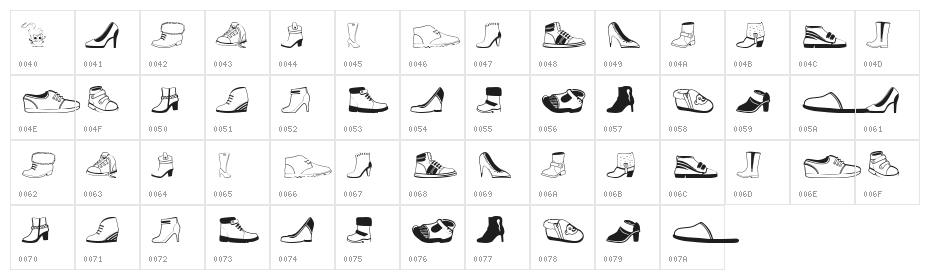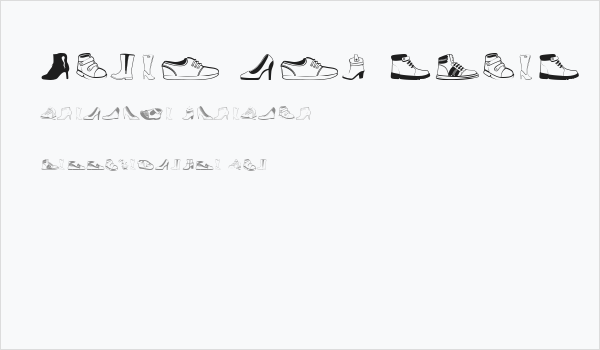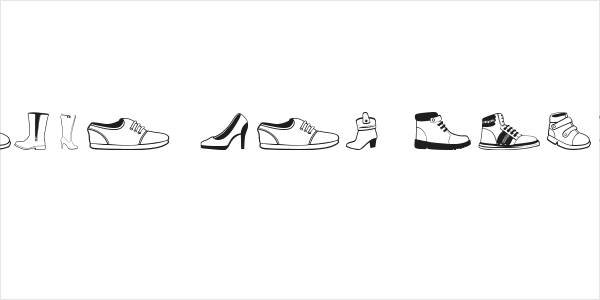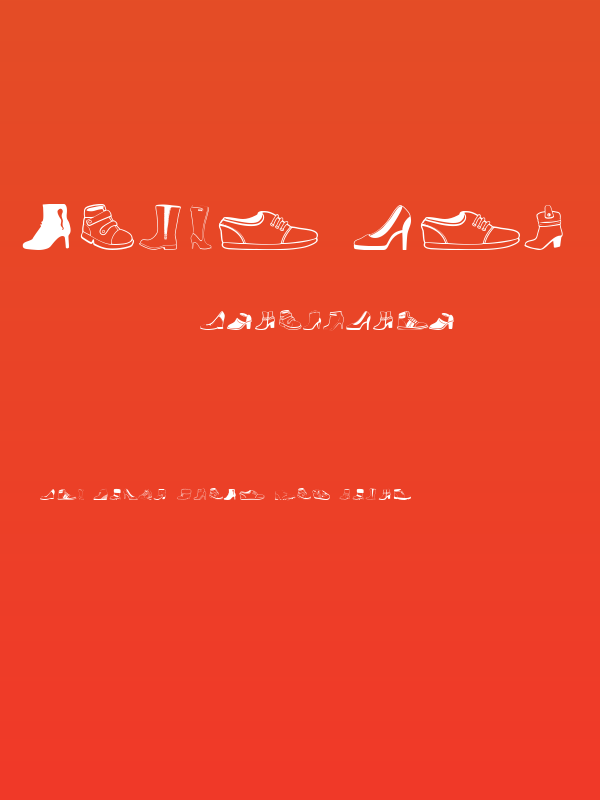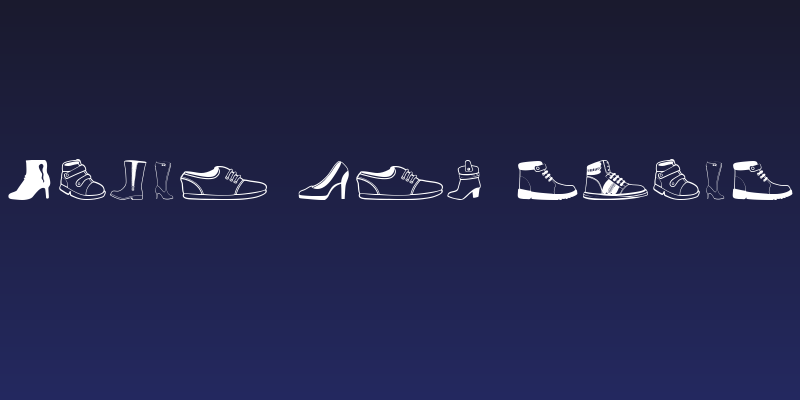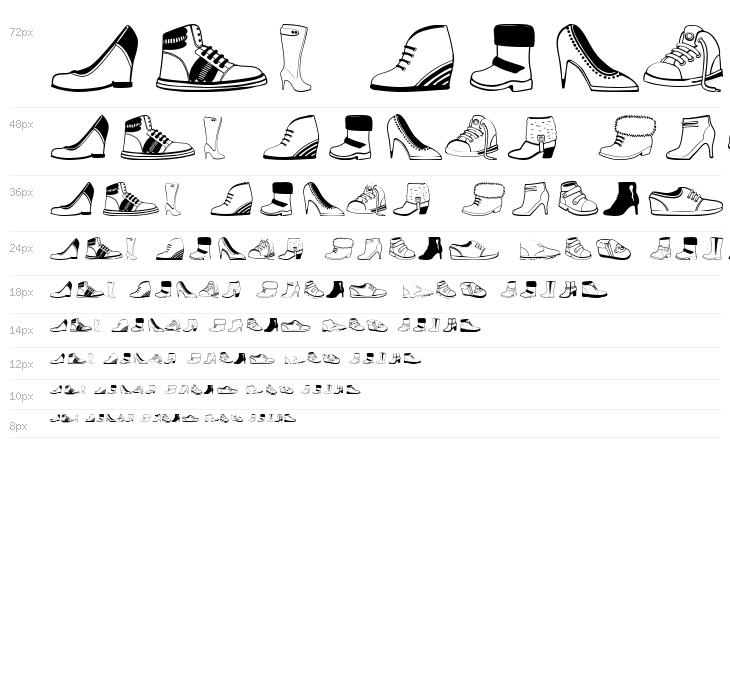
Women And Shoes Font
| Overall Style | Decorative, Playful, Illustrative |
| Use Case | Logos, Posters, Themed Graphics, Social Media, Educational Materials |
| Proposed Projects | Fashion branding, infographics, children's books, playful posters, themed party invitations. |